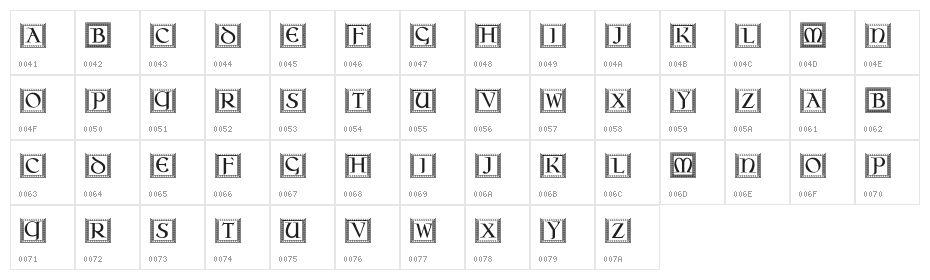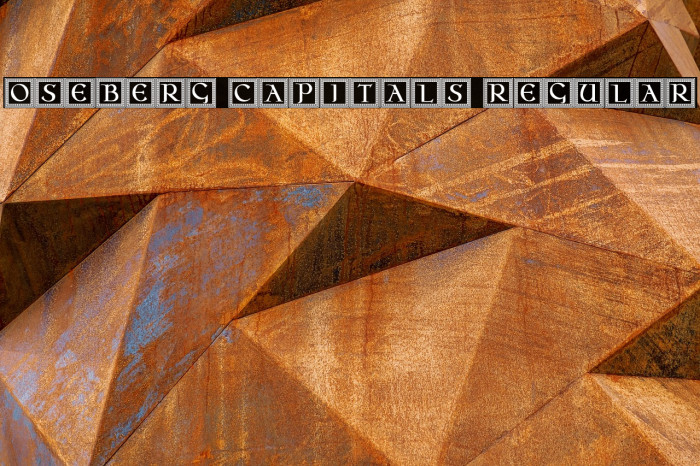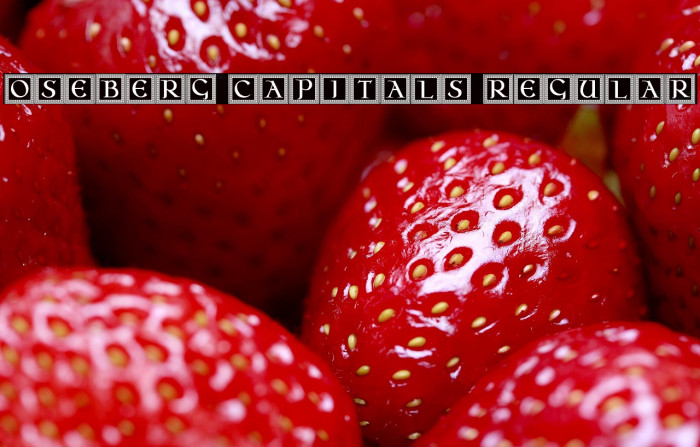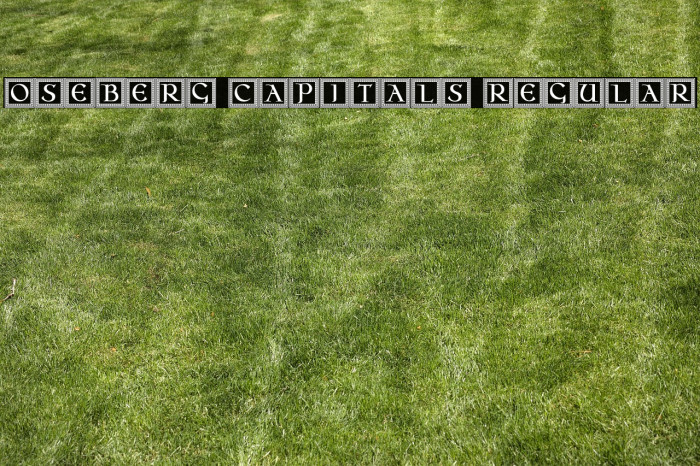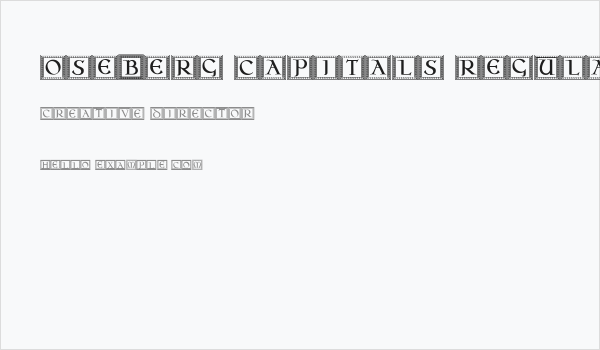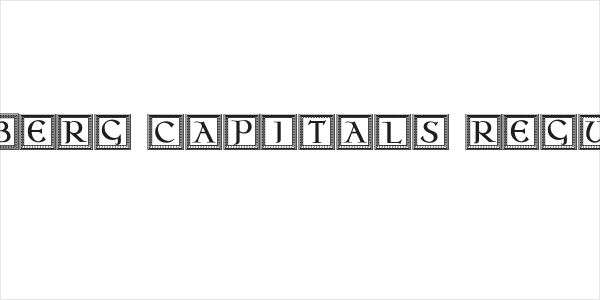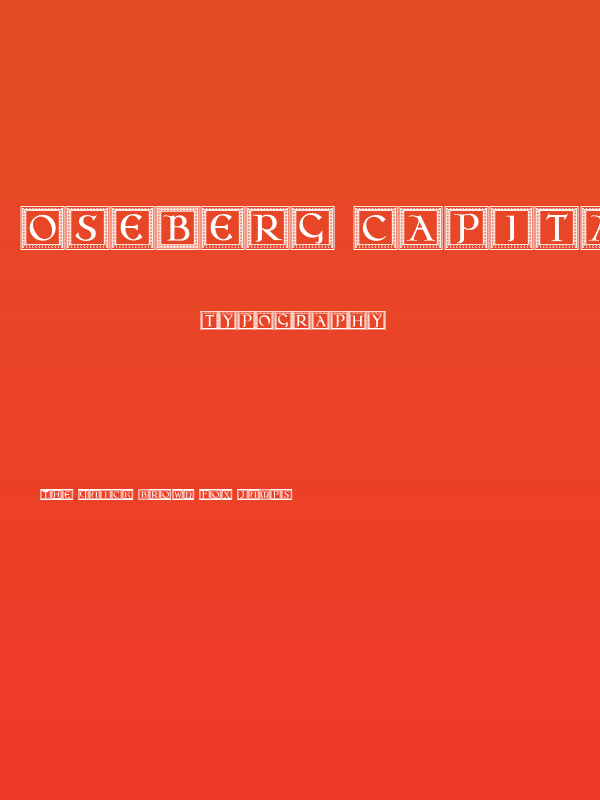
Oseberg Capitals Regular Font
Oseberg Capitals Regular Description
This font features a decorative and intricate design, reminiscent of ancient or medieval script styles. Each character is enclosed within a square frame, adding to its ornate and structured appearance. The letters exhibit a blend of sharp and rounded edges, with unique embellishments that give it a distinct, historical feel. The use of decorative elements within the characters themselves suggests a design inspired by traditional craftsmanship, making it suitable for projects that require a touch of elegance and antiquity.
| Proposed Projects | Ideal for historical themed designs, invitations, book covers, or any project seeking a vintage or classical aesthetic. |